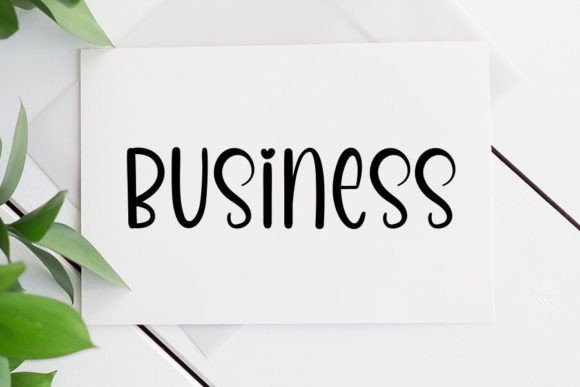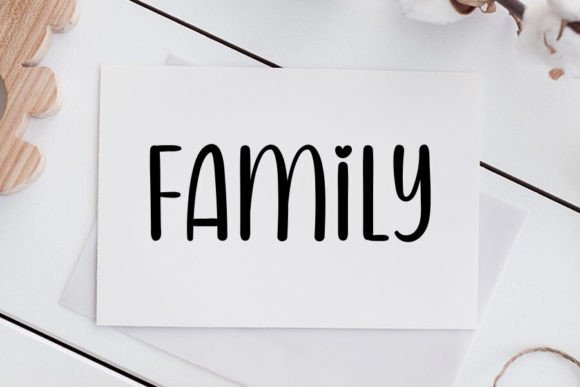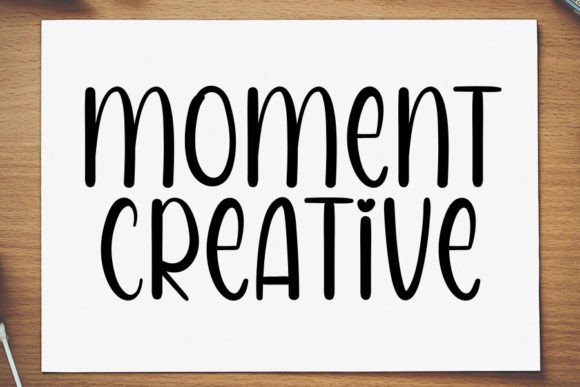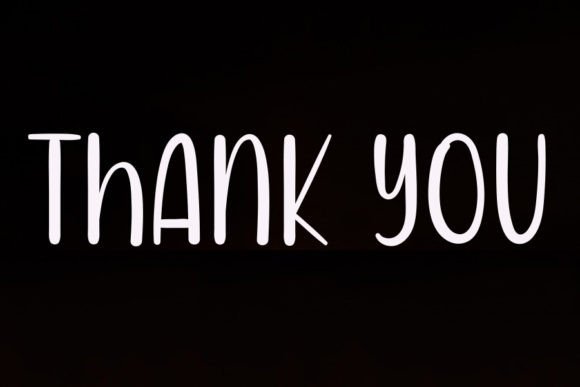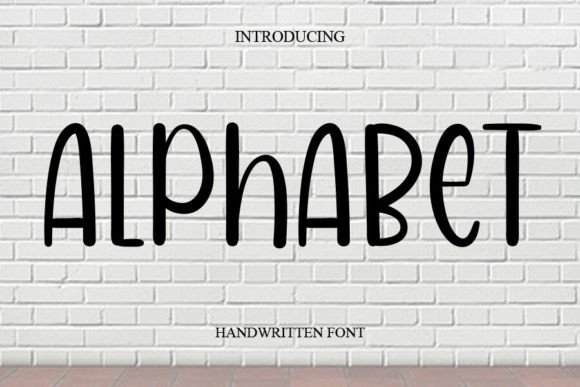
The Charm of Alphabet Font: A Designer’s New Best Friend
I’ll never forget the time I was working on a greeting card project, and I just couldn’t seem to find the right font. The client wanted something simple, yet elegant; something that would convey a sense of warmth and personality. I scoured the internet, tried out countless fonts, but nothing seemed quite right. That was until I stumbled upon Alphabet Font. ✨
This beautiful, handwritten font has been a game-changer for me. Its versatility and charm have made it a go-to for many of my projects, from headlines to invitations. In this article, I’ll share with you my love for Alphabet Font, its features, and how to make the most of it in your designs.
• ✨ Simple and elegant design that’s perfect for a wide range of projects
• ✅ Great for creating a personal, handwritten feel
• ✅ Works well with both digital and print media
While Alphabet Font is an excellent choice, there are a few things to keep in mind: 🤔
• ⚠️ Limited character set compared to some other fonts
• ⚠️ May not be the best choice for very long blocks of text
The Story Behind Alphabet Font
While the origins of Alphabet Font are unclear, it’s likely that it was designed with the intention of creating a simple, yet elegant font for everyday use. The designer may have been inspired by traditional handwriting or classic typography. Whatever the inspiration, Alphabet Font has become a beloved choice among designers and crafters.
Font Name Alphabet Font
Author cans studio
Q: What is Alphabet Font?
A: Alphabet Font is a simple, handwritten font designed for a wide range of projects, from greeting cards to headlines.
Q: What are some common uses for Alphabet Font?
A: Alphabet Font is commonly used for greeting cards, invitations, headlines, and other design projects where a simple, yet elegant font is desired.